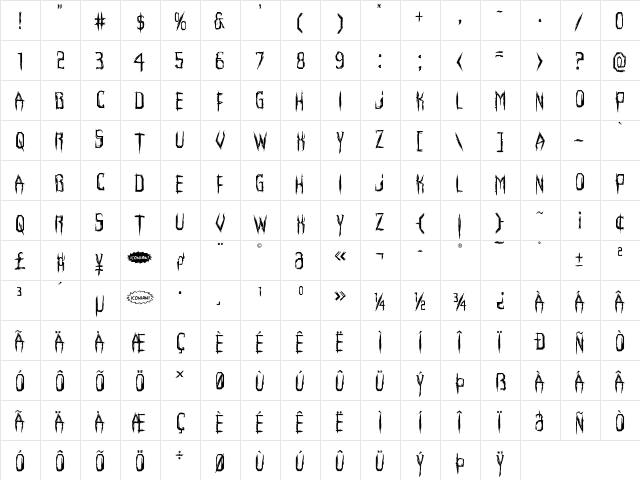
Horroroid Staggered Regular
Design Context for Horroroid Staggered Typeface
Horroroid Staggered leans into the macabre with letterforms designed to disturb and intrigue in equal measure.
Ideal for Halloween projects, horror film titles, haunted house signage, and dark editorial design.
Font Pairing: Pair with a clean neutral sans-serif for body copy to let Horroroid Staggered's character lead without overwhelming the composition.
Pro Tip: Horroroid Staggered works best as a headline or focal element. Pair it against plain, neutral body text to amplify the contrast.